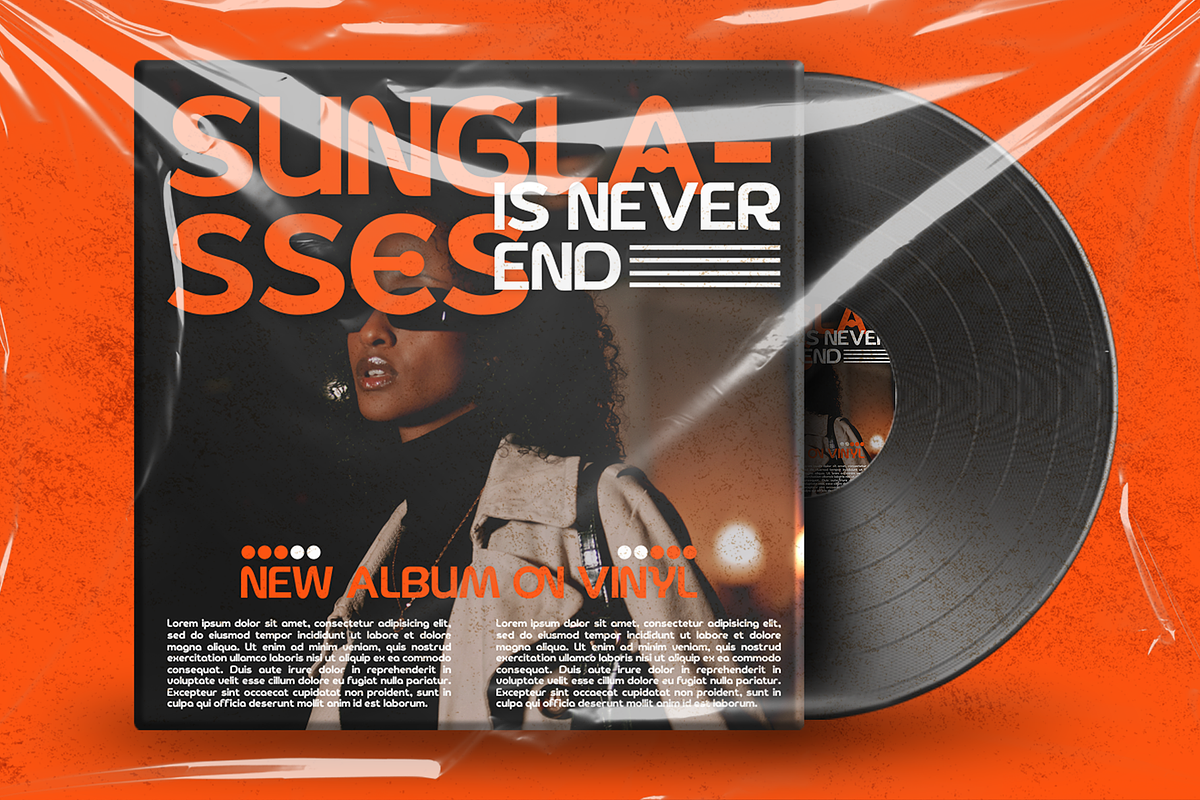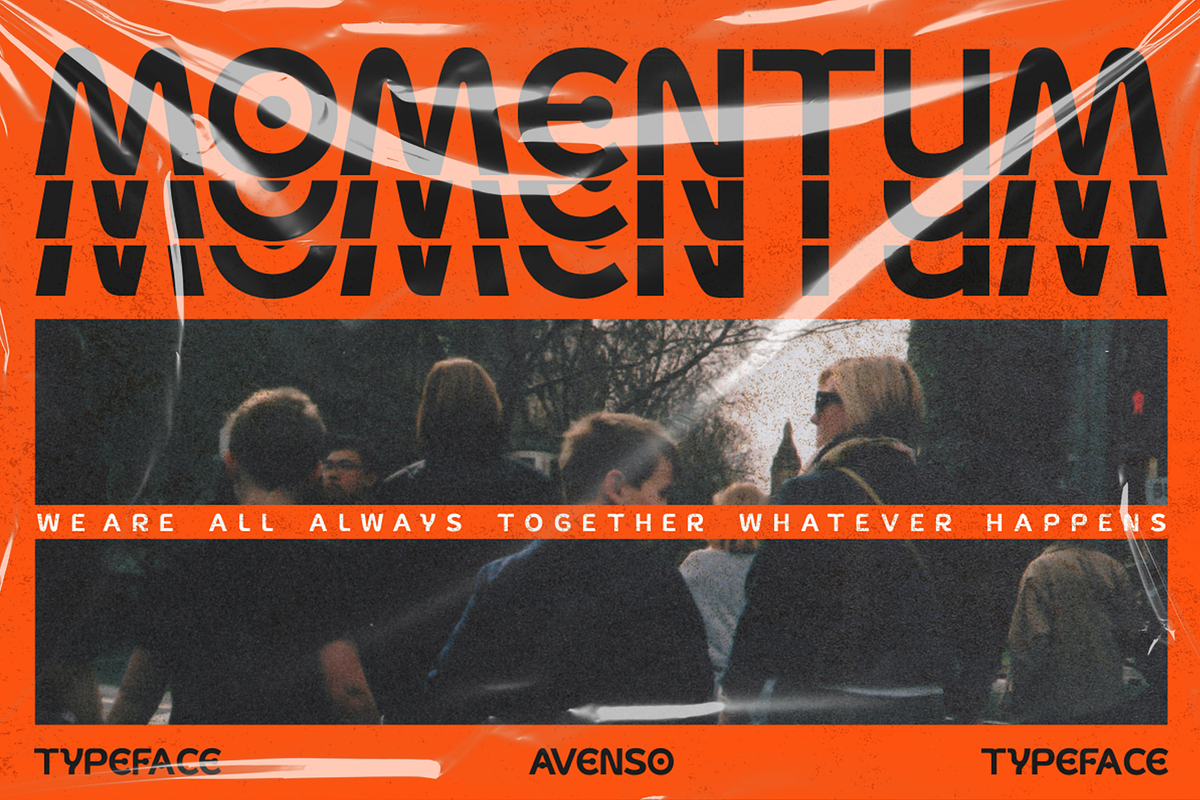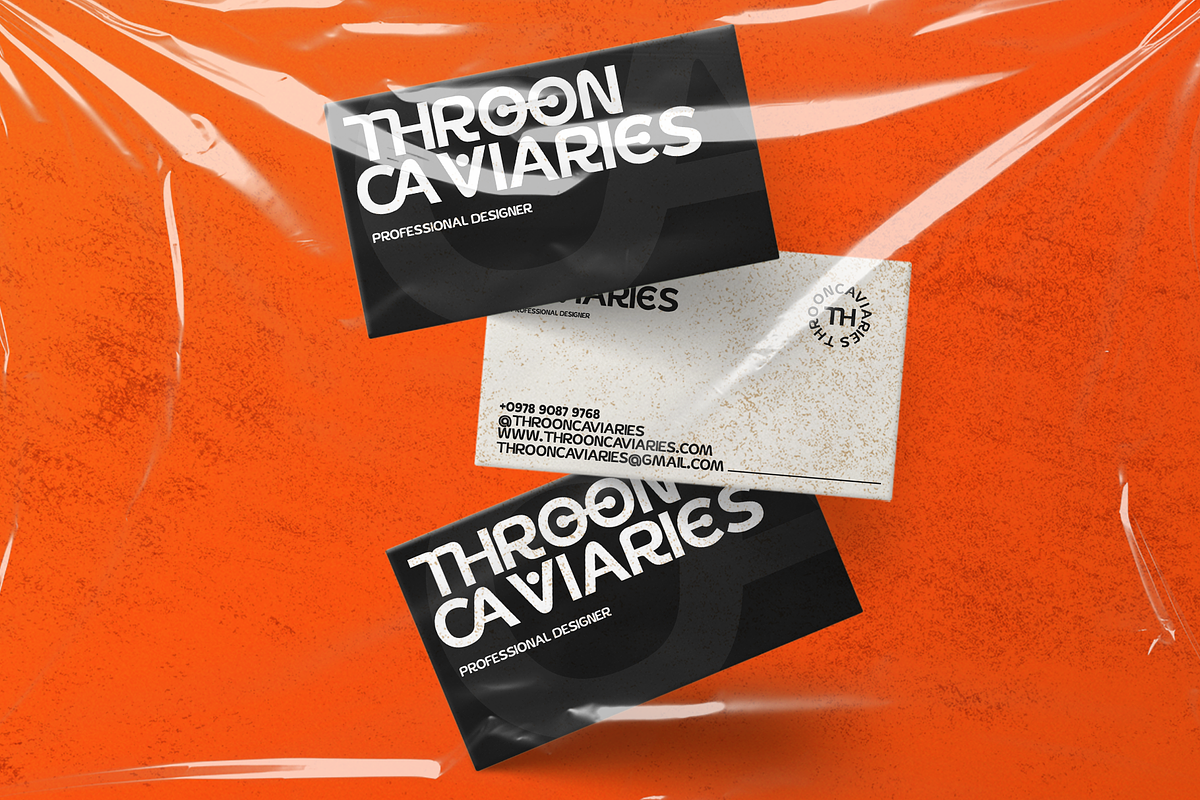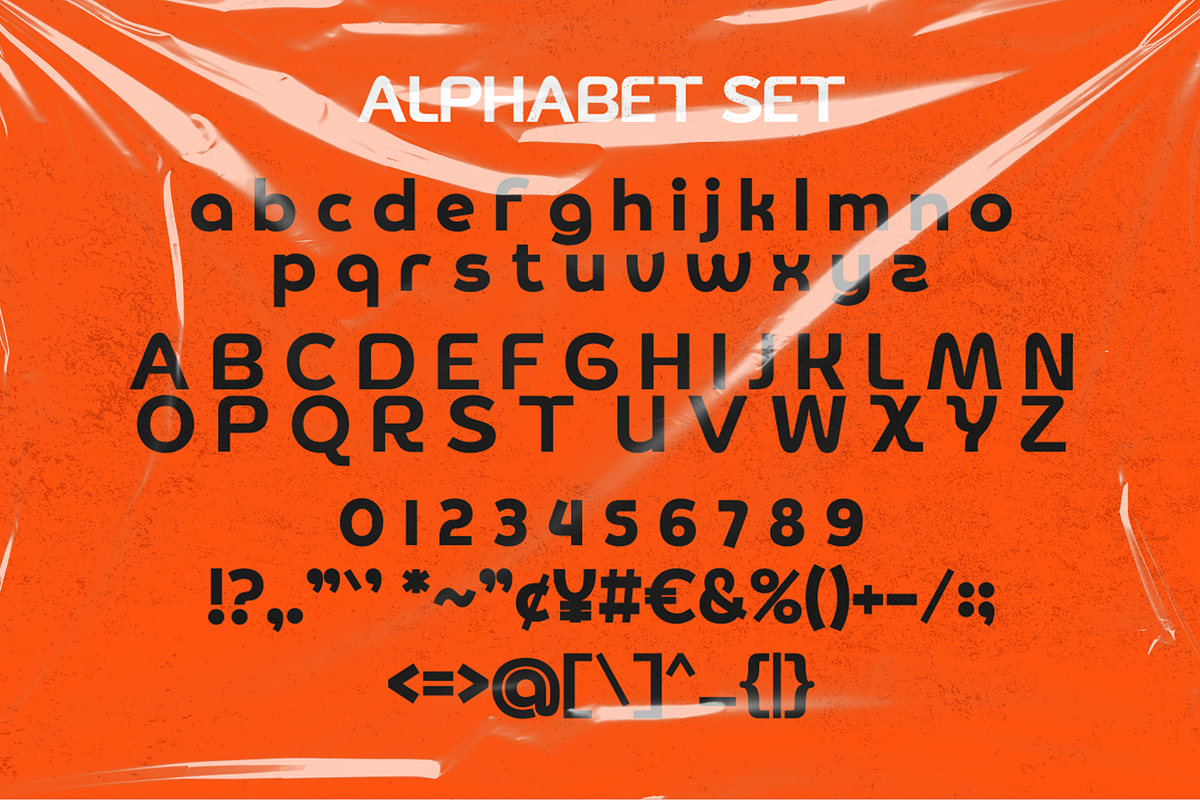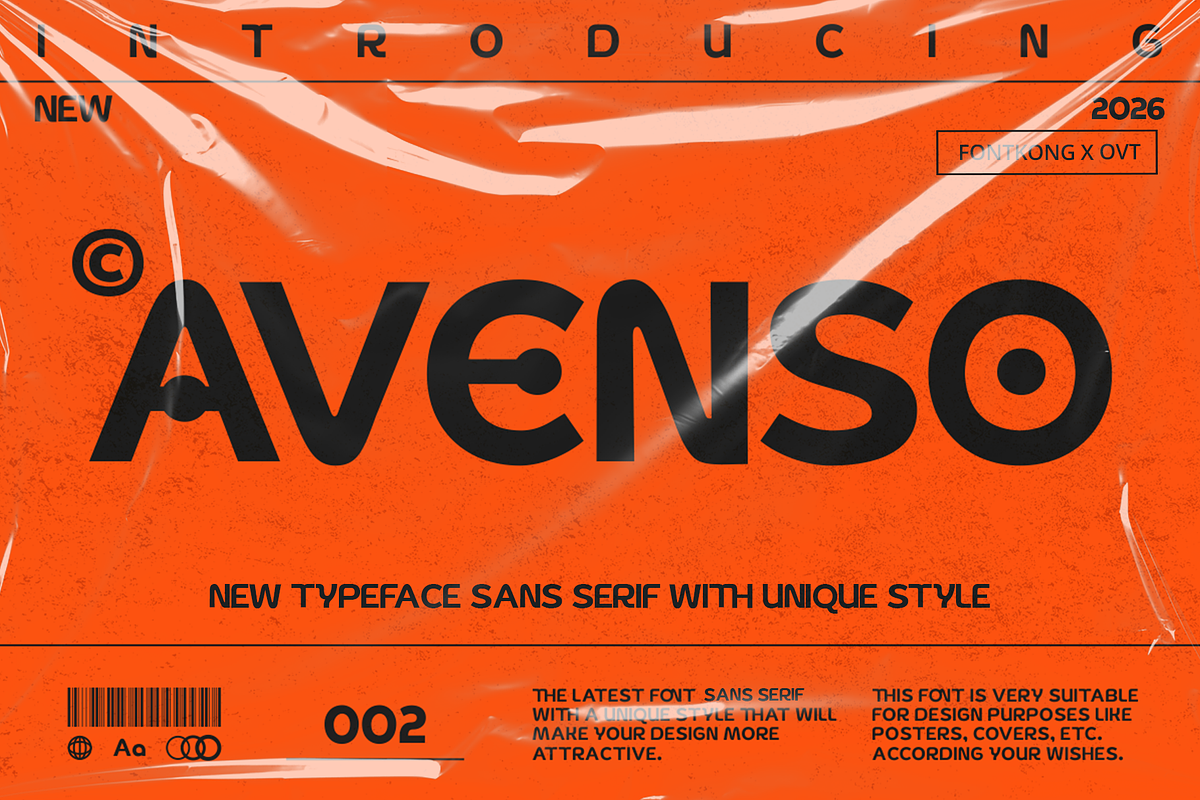
Avenso - Sans Serif Typeface
Avenso - New Sans Serif Typeface with Unique Style
Introducing "Avenso," a new sans serif typeface that combines modern elegance with a unique style. Perfect for graphic designers, branding specialists, and creatives looking for a fresh and distinctive font, Avenso offers a refined and contemporary look that sets your work apart.
Ideal for branding, logos, web design, editorial content, and packaging, Avenso's clean lines and unique character shapes provide a sophisticated and memorable aesthetic. Each letter is meticulously designed to ensure exceptional readability and visual harmony, making your designs both stylish and effective.
The "Avenso" font includes a full set of uppercase and lowercase letters, numbers, punctuation marks, and a variety of special characters. This comprehensive set ensures versatility and adaptability across a wide range of design projects, from sleek branding to elegant editorial layouts.
Elevate your design projects with Avenso, the sans serif typeface that blends modern elegance with distinctive flair.